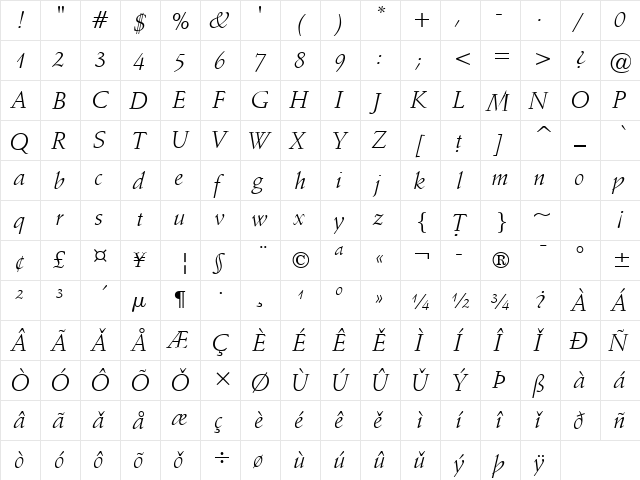
VANIEL 1 Italic
Design Context for VANIEL 1 Typeface
VANIEL 1 is a composed and adaptable typeface that performs quietly and consistently across a wide range of design contexts. Its italic angle brings a sense of urgency and motion to the letterforms.